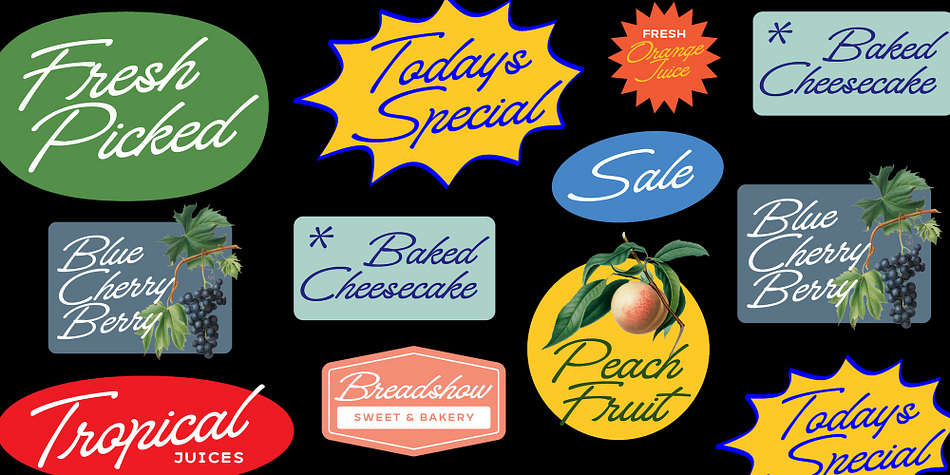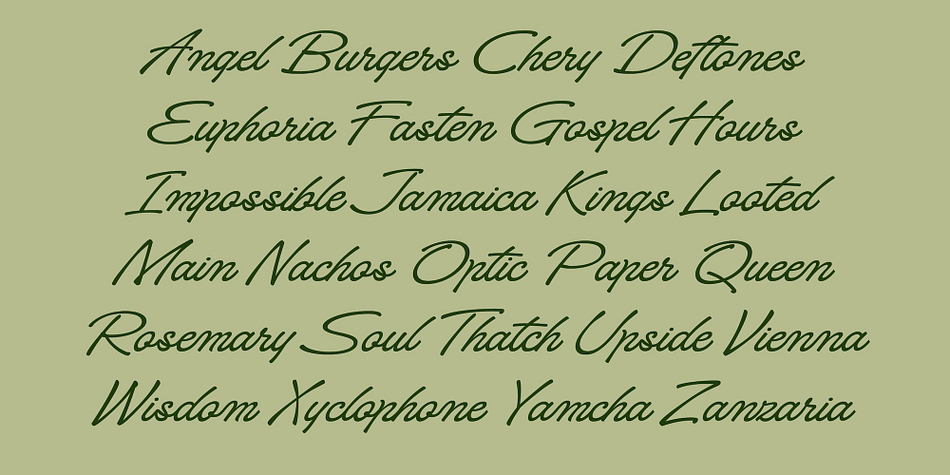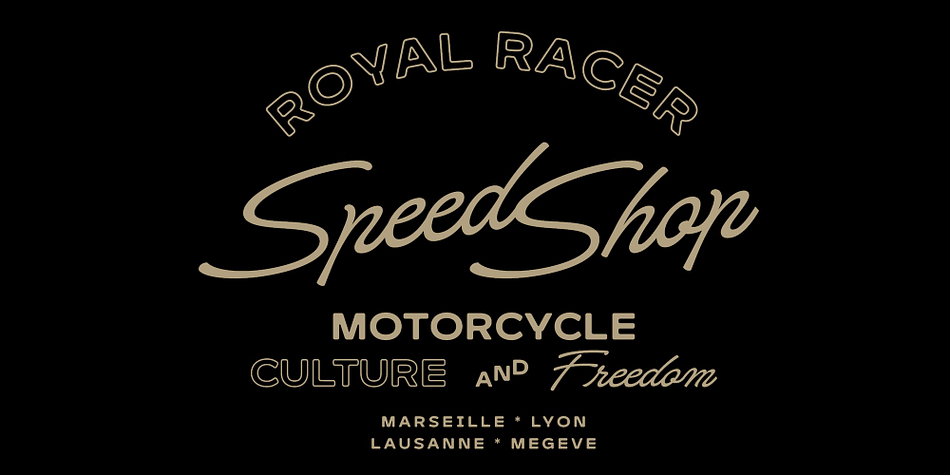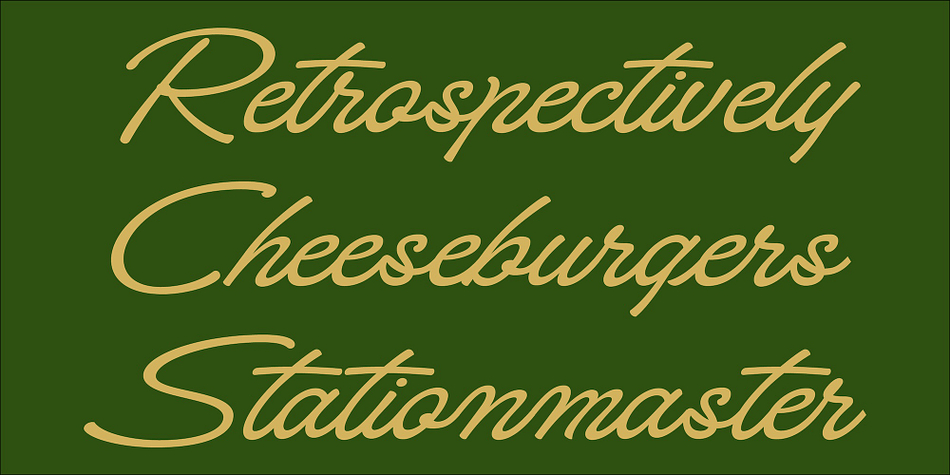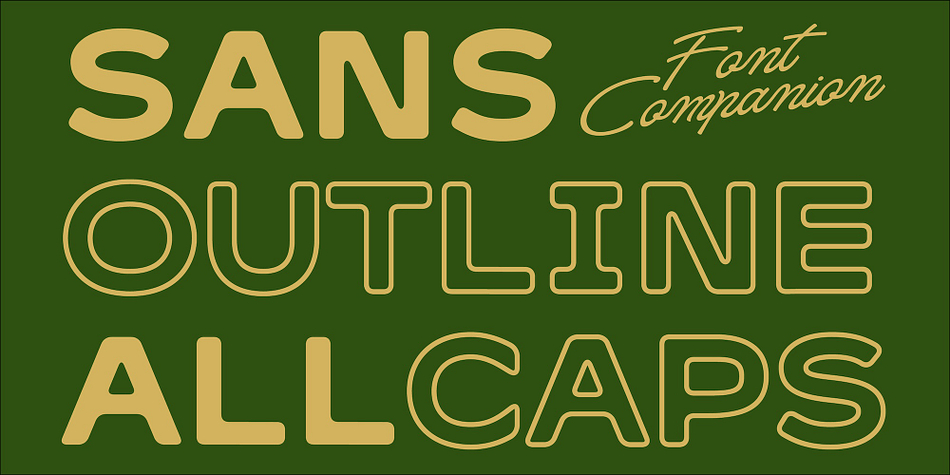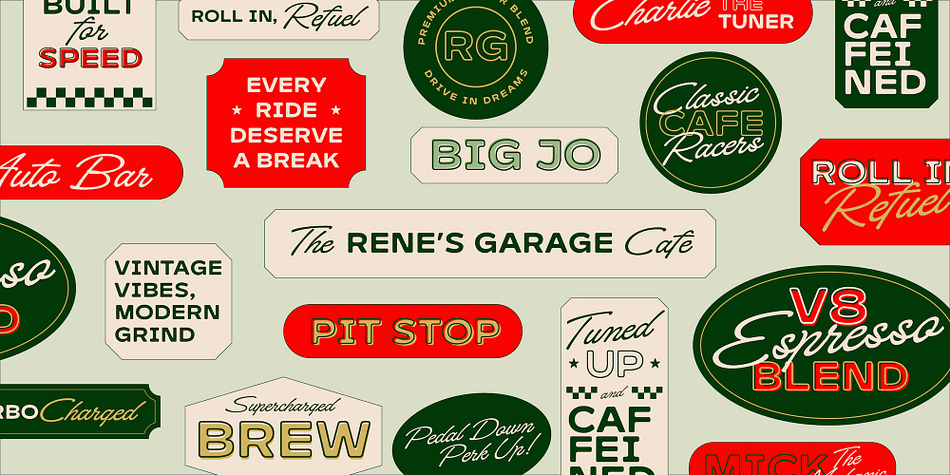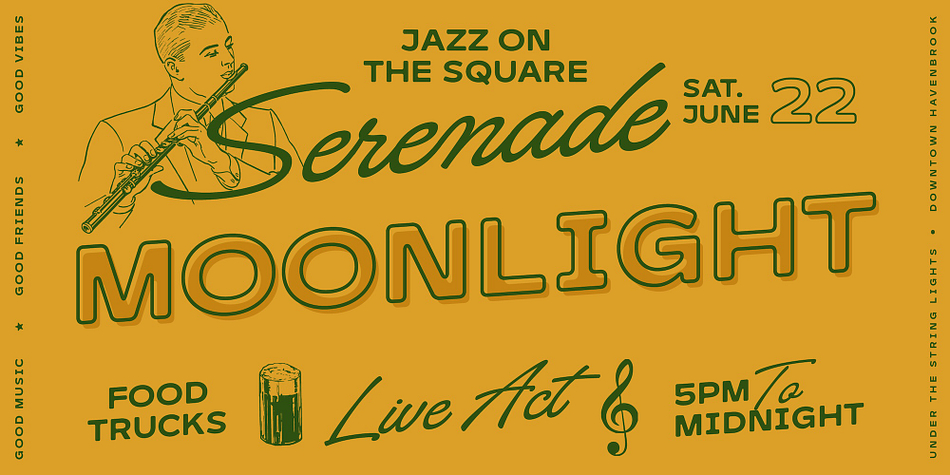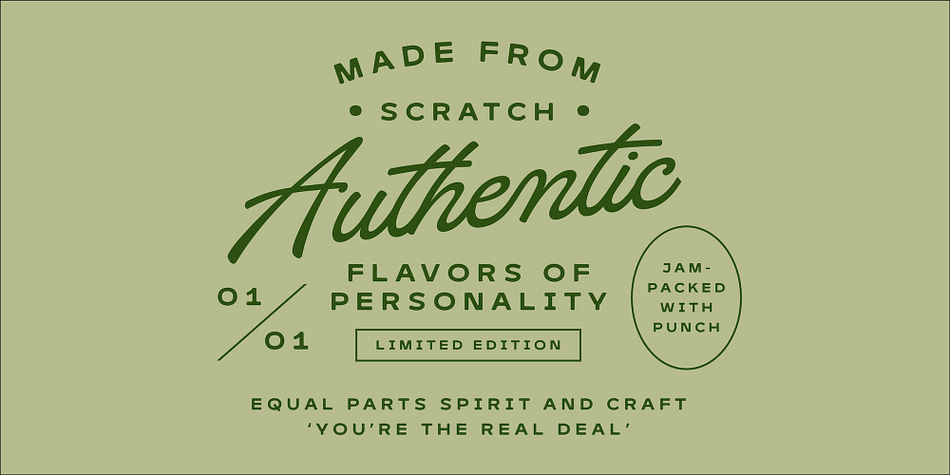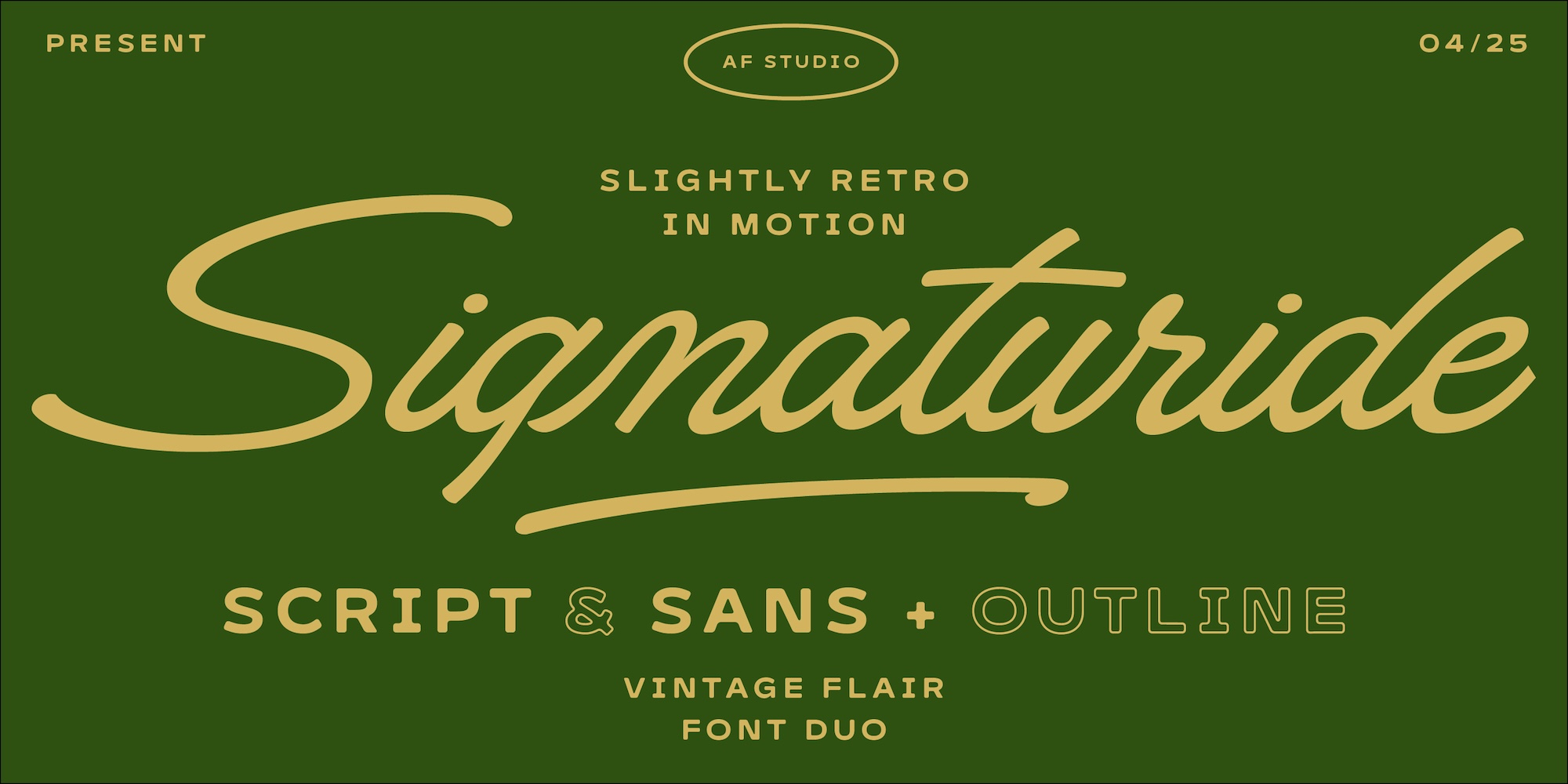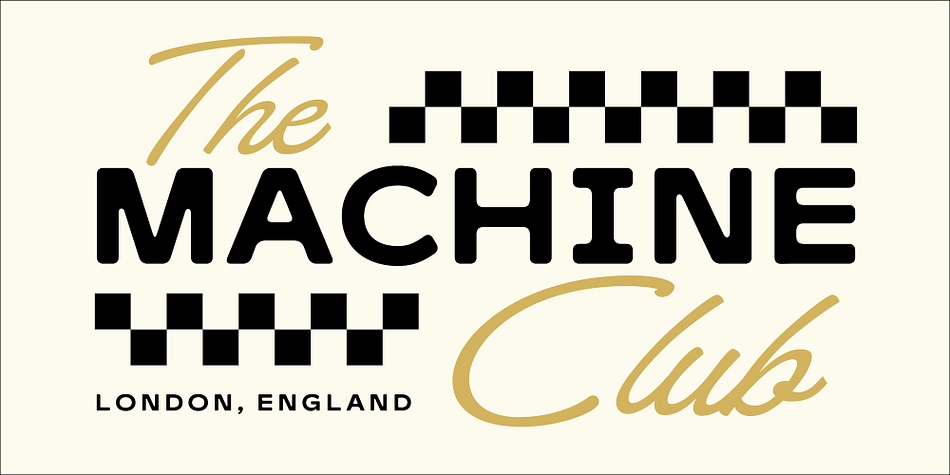
Signaturide
Designed by Adam Fathony, Signaturide is a script font family. This typeface has three styles and was published by AF Studio.
Signaturide is a versatile vintage-inspired font duo that seamlessly blends retro charm with modern functionality. Featuring a dynamic pairing of script and sans-serif styles, Signaturide captures the expressive motion of mid-century design while offering contemporary usability for branding, editorial, and packaging projects.
Key Features:
Script + Sans + Outline Styles: A flexible trio that includes a flowing, hand-drawn script, a bold sans serif, and a stylish outlined version for standout compositions.
Retro Flair: Rooted in classic Americana and vintage motor culture, Signaturide brings nostalgic elegance to every letterform.
Multilingual Support: Includes extensive character sets to accommodate a wide range of languages and special characters.
Stylistic Alternates & Ligatures: Carefully crafted alternates and ligatures provide authentic customization and typographic personality.
Perfect for Motion & Logos: Designed with a natural slant and kinetic energy that make it ideal for motion graphics, automotive branding, signature logos, and dynamic display use.
Ideal Uses:
Lifestyle Branding
Vintage Labels
Restaurant Menus
Motorcycle & Automotive Graphics
Editorial Titles
Event Posters